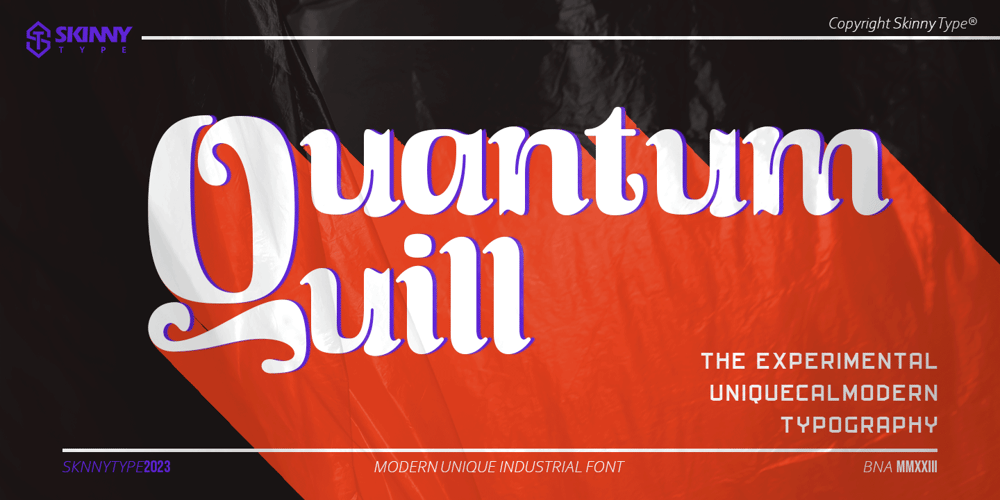
Quantum Quill
Quantum Quill font
Quantum Quill Font Family was designed by Muhajir and published by Skinny Type. Quantum Quill contains 1 styles and family package options. Quantum Quill – A Experimental Unique Display TypefaceQuantum Quill font, classic clean and thoughtful, combined in one font, use this font for any beauty spot for logos, titles, cover books, magazines and more.